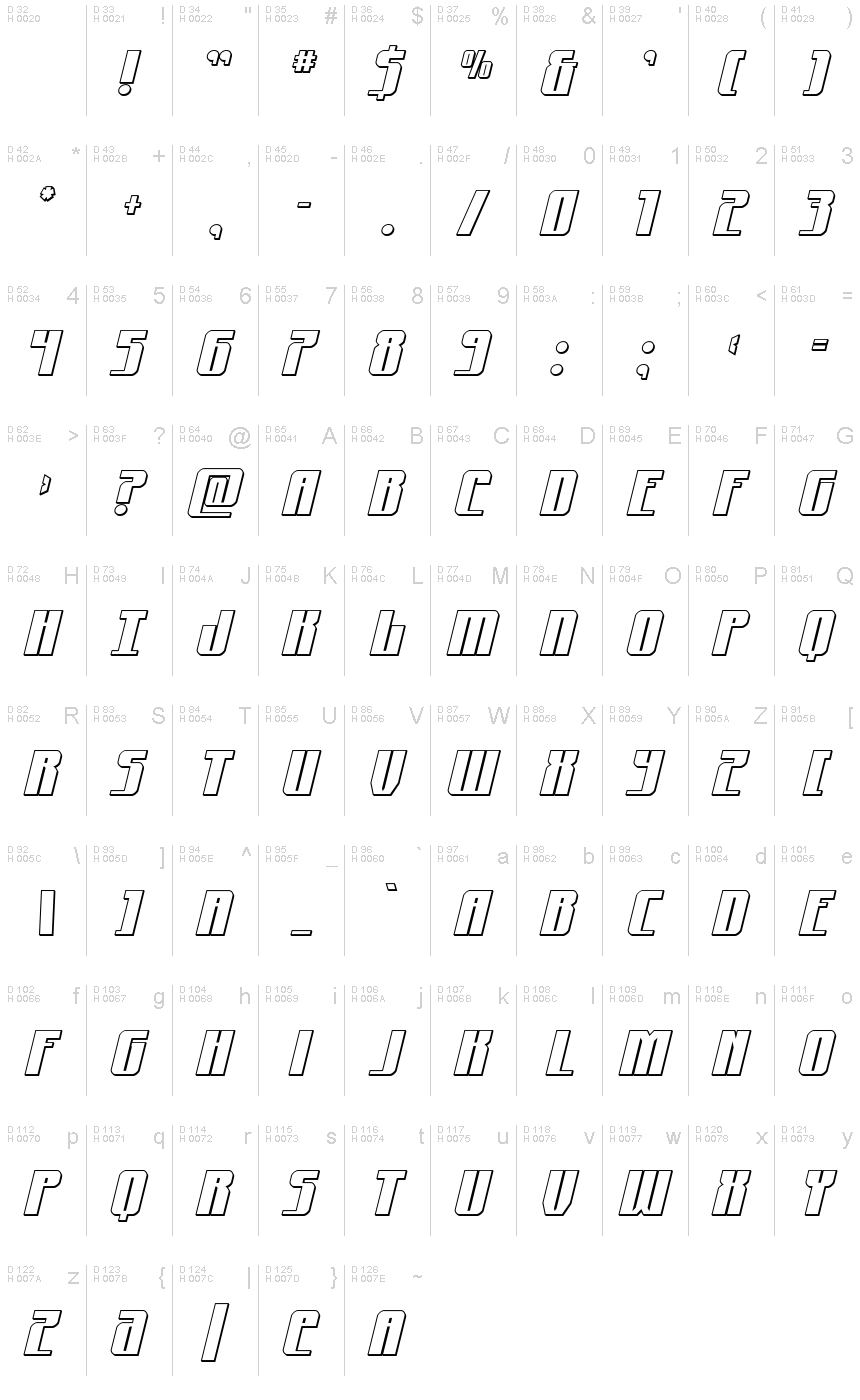
Xeno-Seeker 3D Italic
Xeno-Seeker 3D Italic font by Iconian Fonts brings a bold, condensed design with a futuristic and techno vibe. Inspired by 1980s sci-fi movies and video games, the geometric letters have an energetic appearance that instantly captures attention. Sporting a sleek and exciting look, this free display font is suitable for dynamic artworks where modernity is essential.
Make use of Xeno-Seeker 3D Italic in technology brands, sports team logos, or titles for video games. Besides applying it to the packaging of inspired modern products or brands, the typeface also suits sci-fi film posters and book covers. Try it on T-shirts and other trendy apparel product designs.